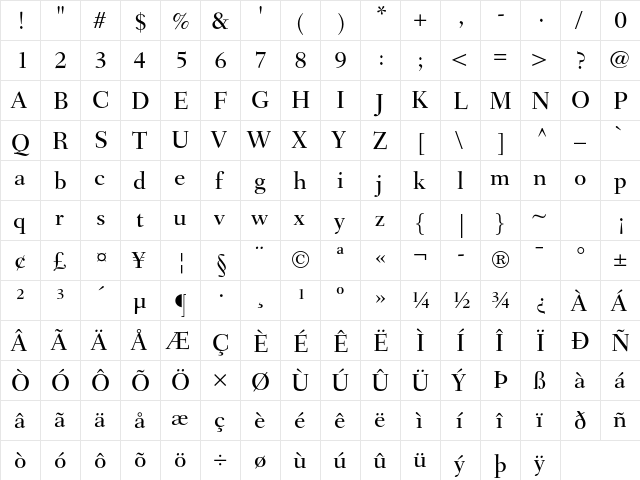
Fairfield LT Std 55 Medium
| Designer | Alex Kaczun, Rudolph Ruzicka |
Design Context for Fairfield LT Std Typeface
Fairfield LT Std offers clean, dependable letterforms without strong stylistic allegiance, making it a practical choice for designers who need flexibility. Its slender proportions lend an understated elegance to any composition.